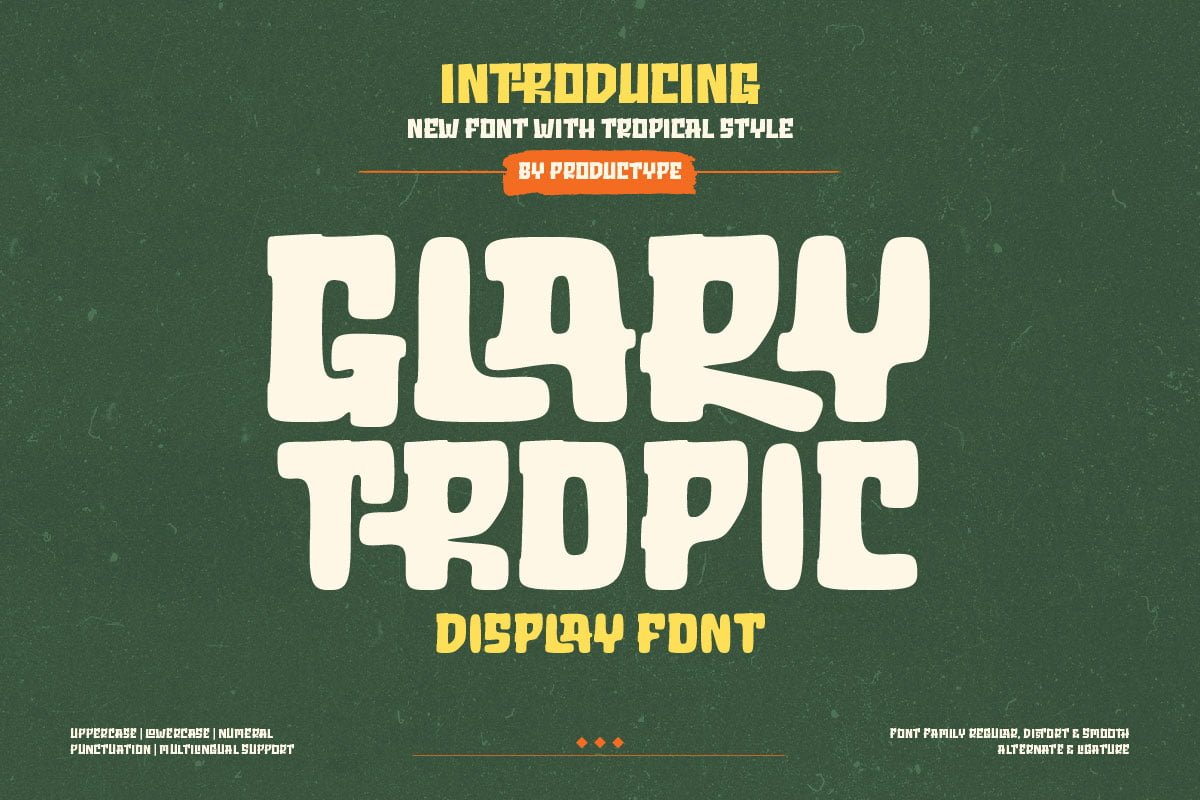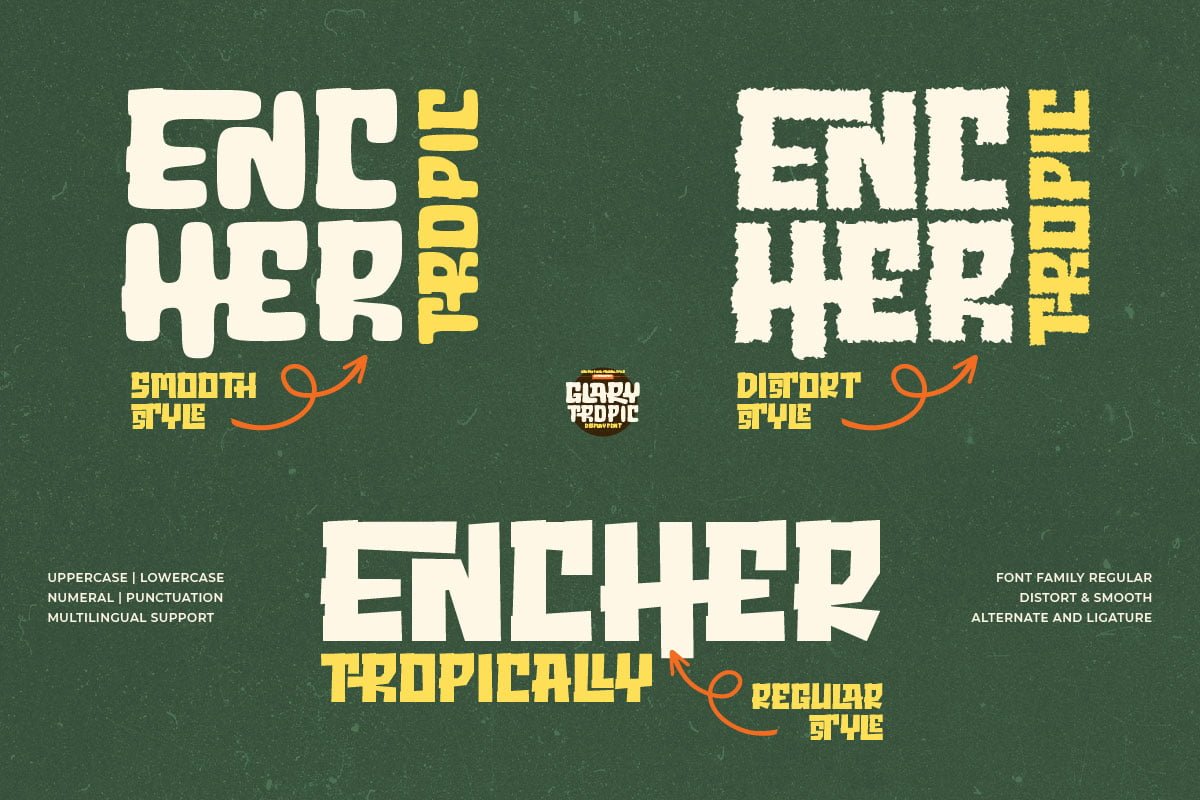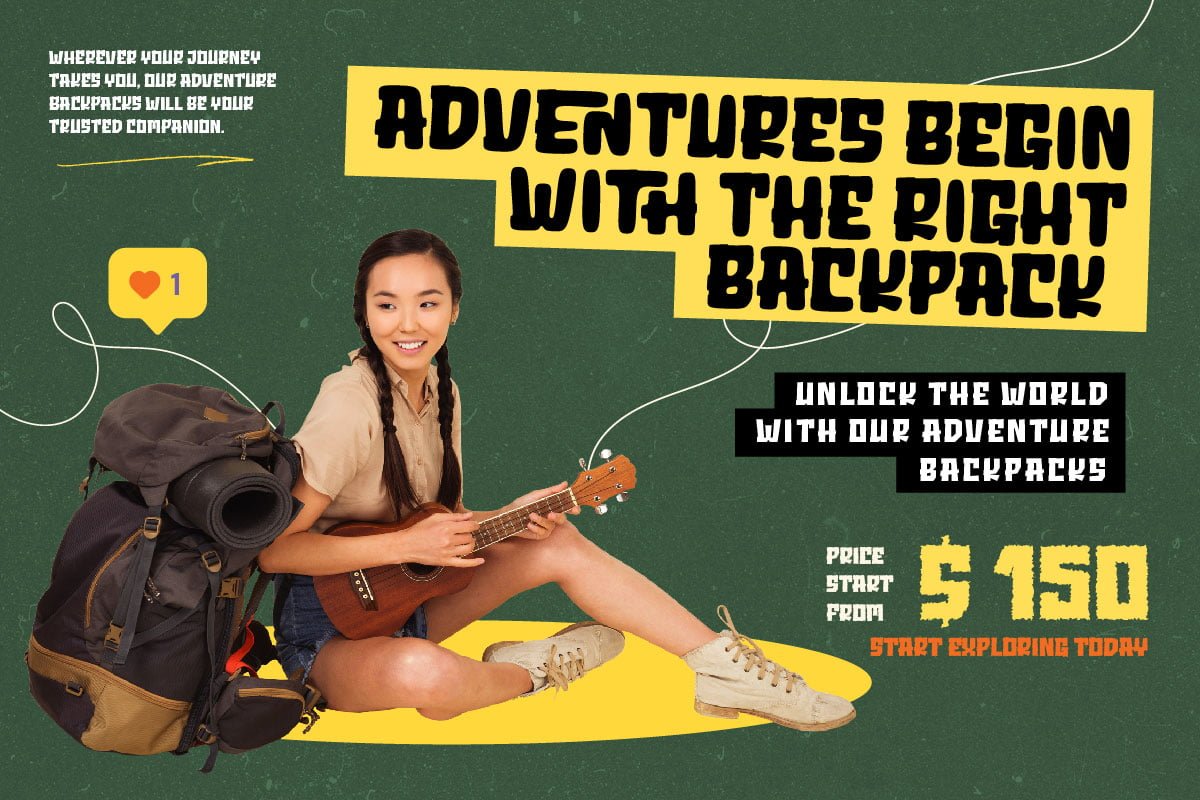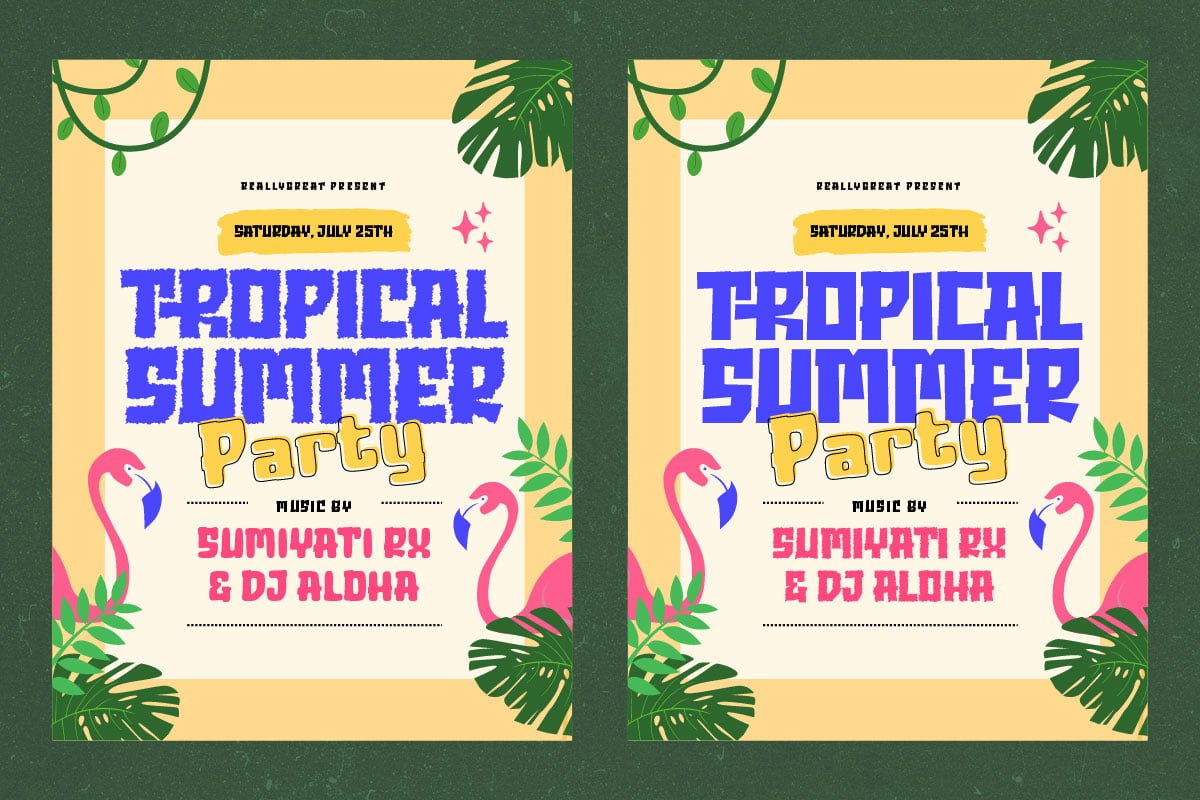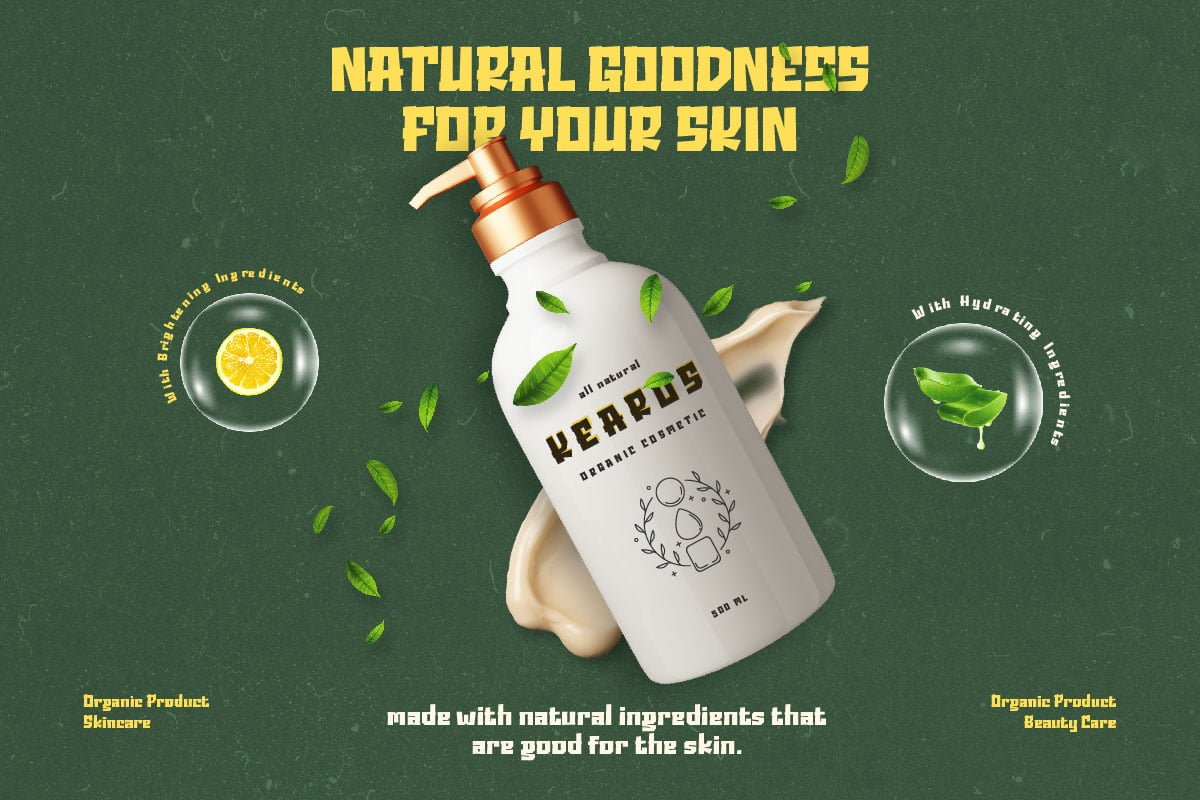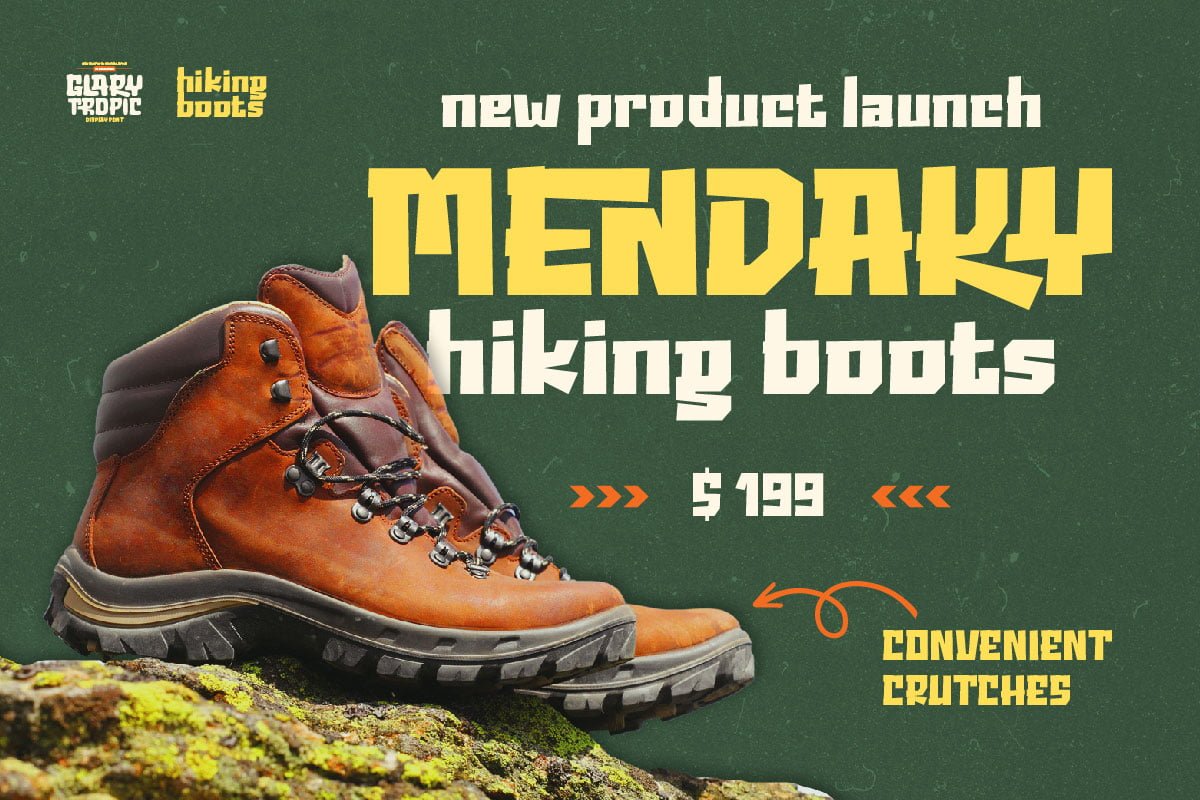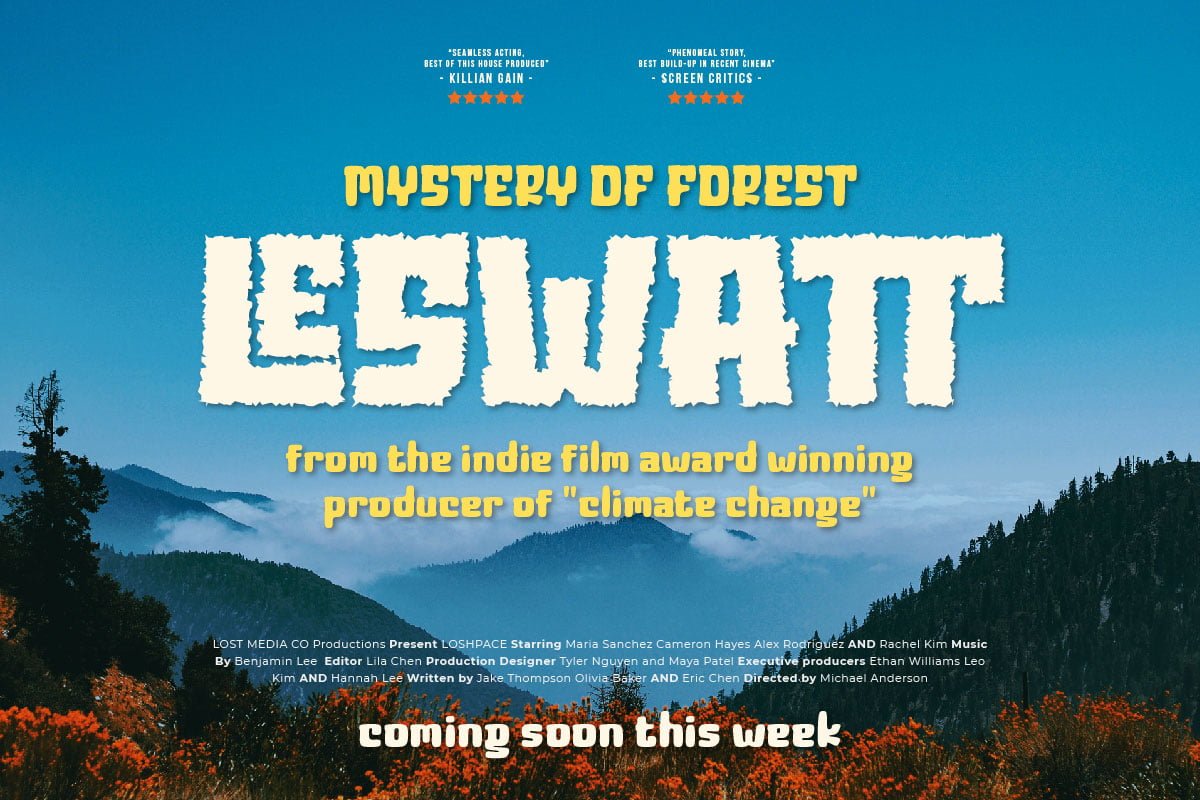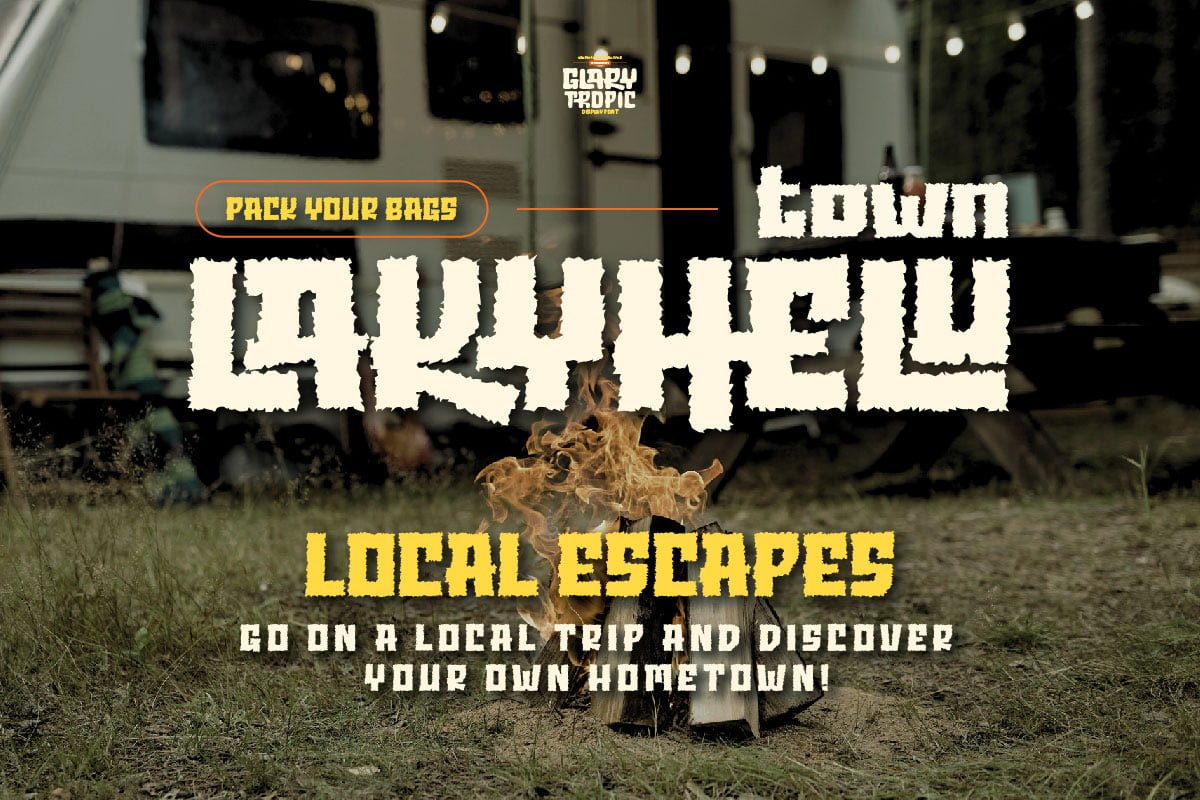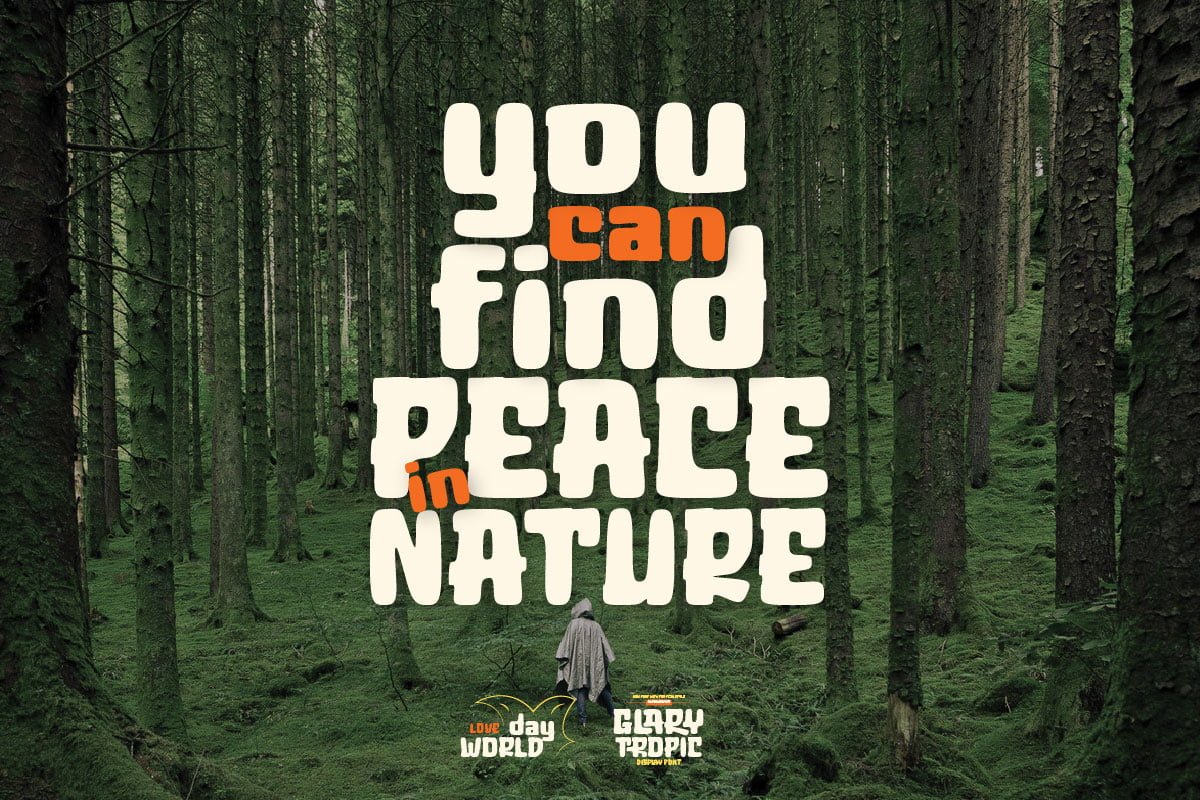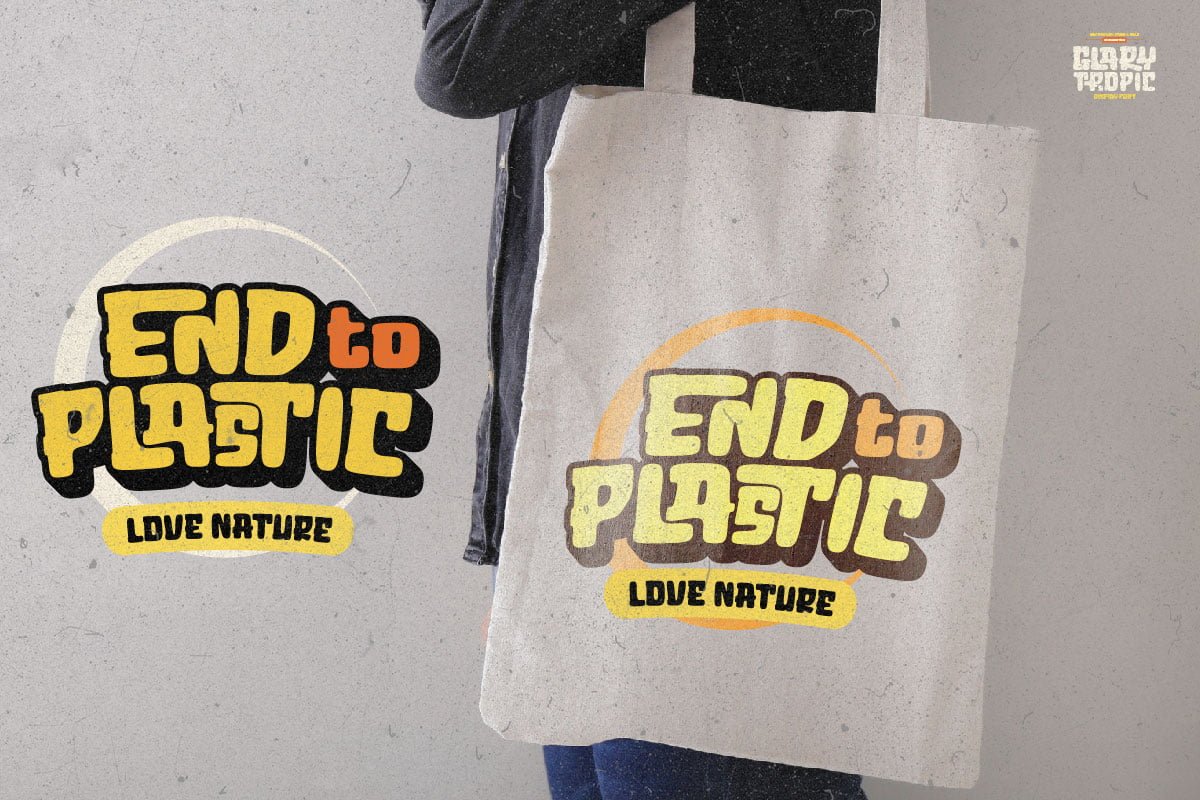
Glary Tropic – Display Font
REGULAR
NATURAL & TROPICAL
SMOOTH
NATURAL & TROPICAL
DISTORT
NATURAL & TROPICAL
Say hello to Glary Tropic, the top choice for stunning, tropical-inspired designs. With boldness and strength imbued in every accent, this font brings a bold touch that immediately steals the show.
Glary Tropic’s bold style brings strong and eye-catching design elements. Filled with a fun tropical feel, each letter creates a fresh, vibrant atmosphere, perfect for projects that require exceptional visual appeal.
This font is designed to provide maximum clarity and impact. With a strong tropical theme, Glary Tropic will be the perfect choice for posters, announcements, branding designs, or other creative projects that require a fresh and dynamic touch.
Enhance your creativity and create unforgettable designs with Glary Tropic. With strength and uniqueness in every accent, this font will be an undeniable choice to take your design projects to the next level.